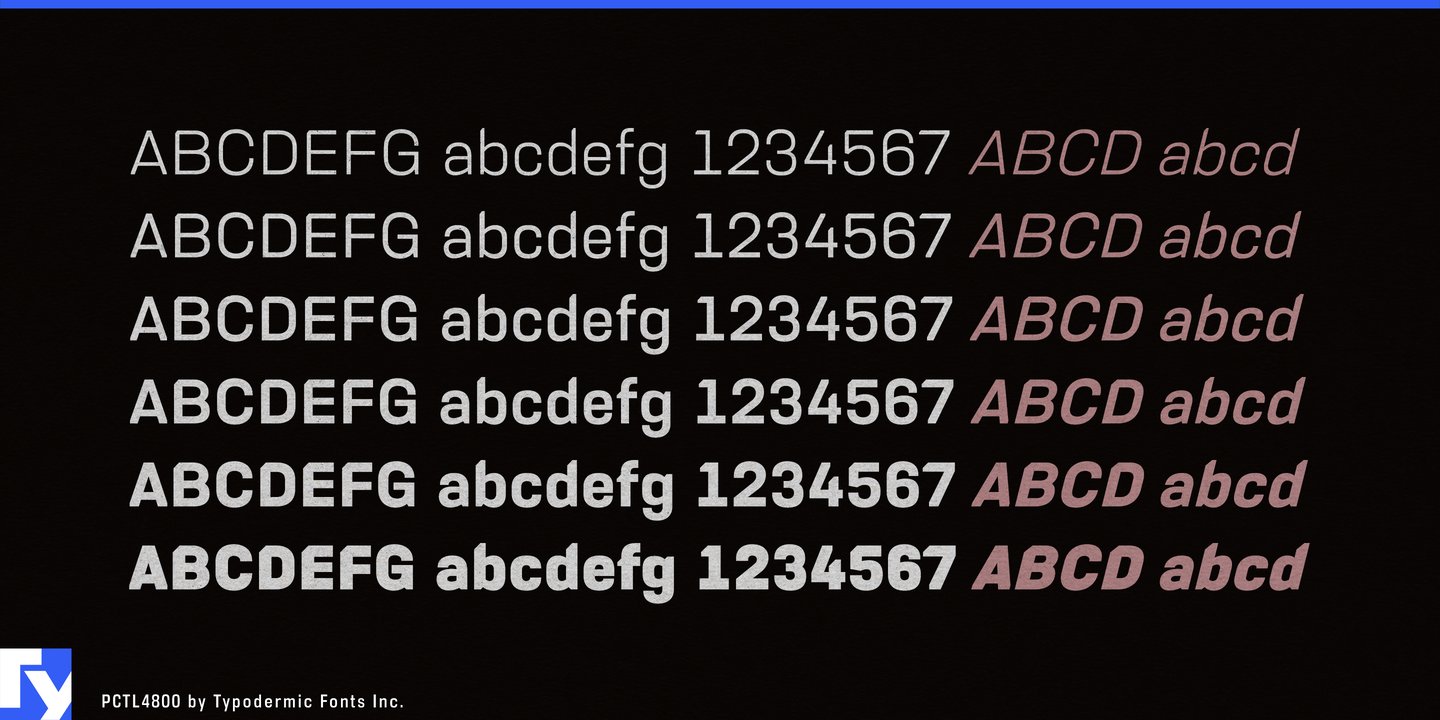
Introducing PCTL4800, a technical sans-serif typeface that’s a must-have in every designer’s toolkit. This typeface is the perfect choice for those who want to achieve a modern or futuristic aesthetic without the vintage baggage or technological gimmickry. With its somber and principled design, PCTL4800 is the perfect choice for conveying a sense of technical sophistication.
What sets PCTL4800 apart is its unique corner index notch, a design feature that hints at an unknown technical necessity, such as an orientation prompt like the notch on an SD card. This feature adds a touch of mystery and intrigue to your designs, making them stand out from the crowd.
And if you prefer a more conservative design, PCTL9600 is the typeface for you. It has all the same great features as PCTL4800, but without the corner index notch.
Both typefaces come with six weights and italics, giving you a wide range of options for any project you’re working on. Why not add PCTL4800 or PCTL9600 to your font collection today and take your designs to the next level with its technical sophistication?